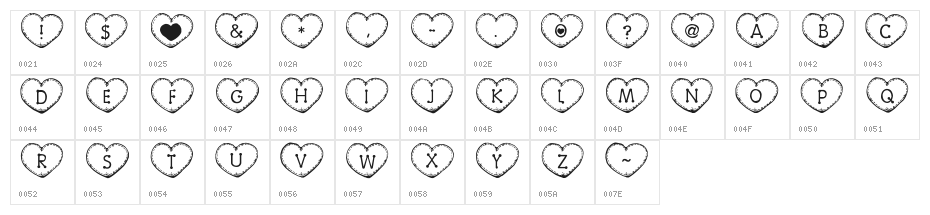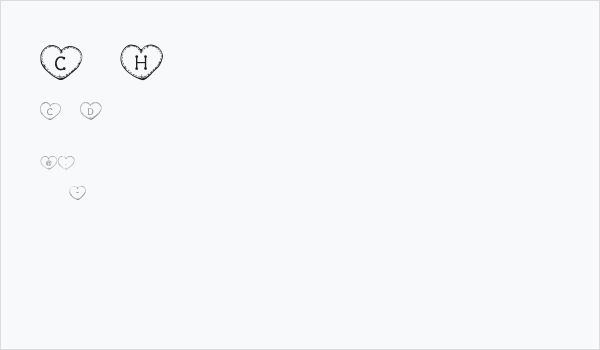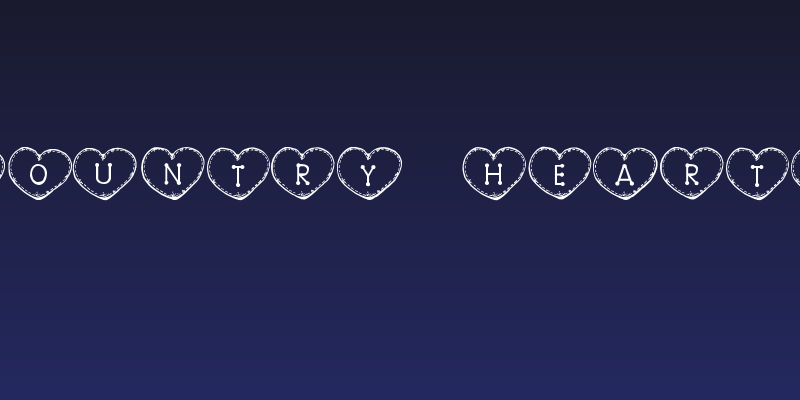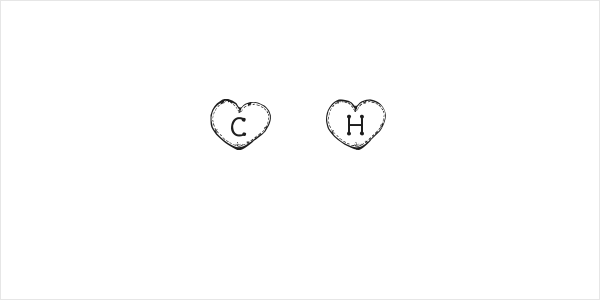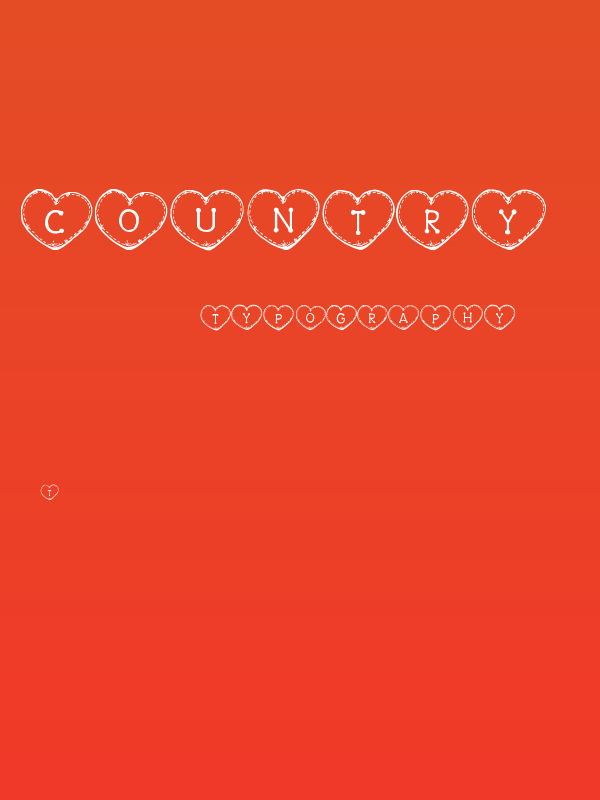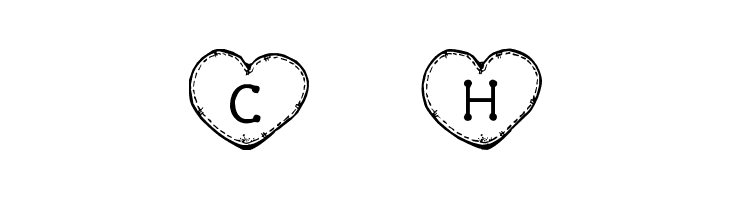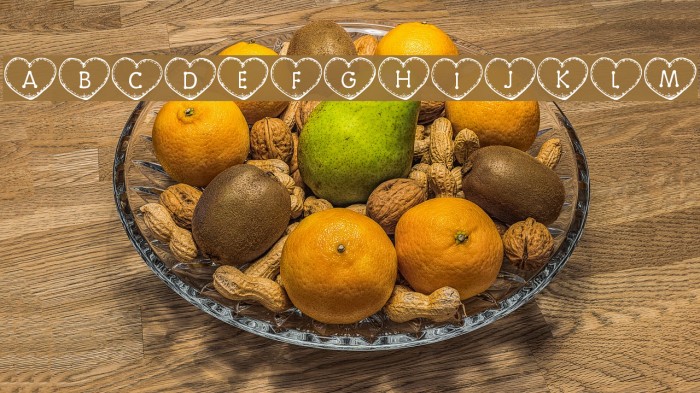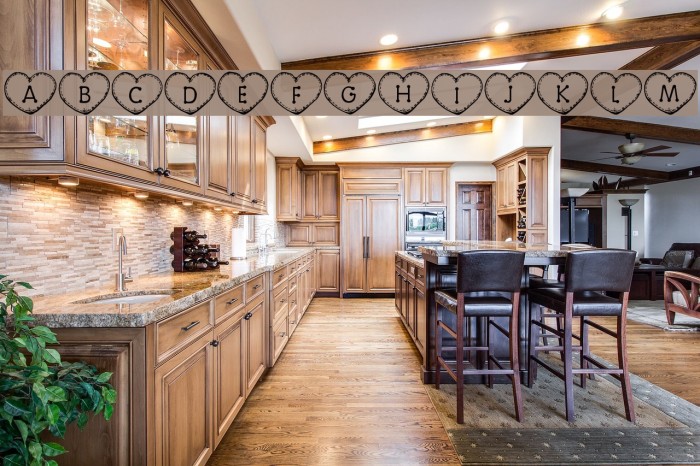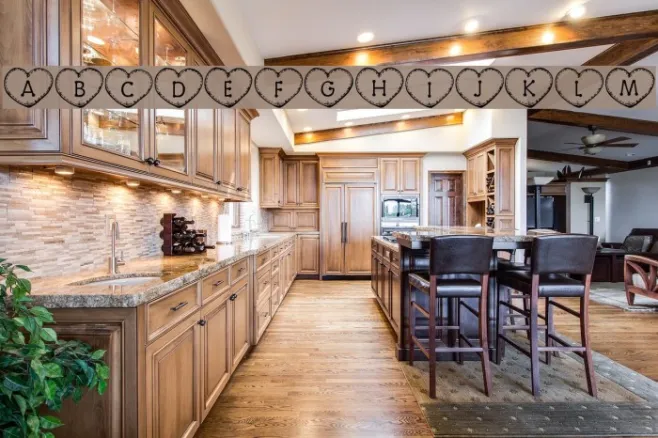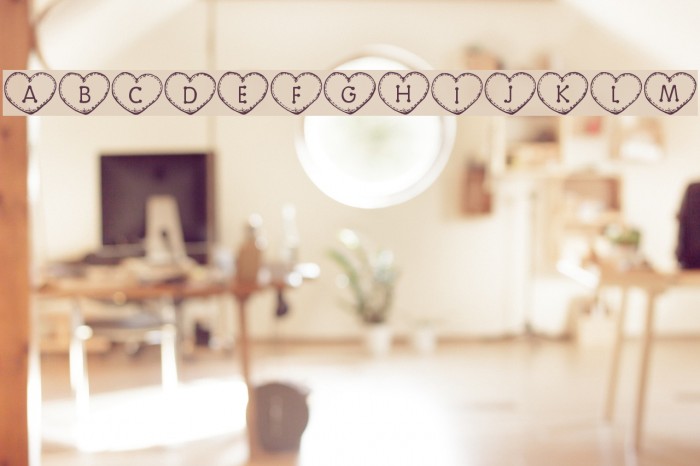
Country Hearts Font
Country Hearts Description
This font features uppercase letters and special characters enclosed within heart shapes, giving it a playful and romantic feel. The letters are simple and sans-serif, providing a clear and legible appearance. The heart outlines are slightly irregular, adding a handcrafted or rustic charm. This decorative style is ideal for projects that aim to convey warmth, affection, or a whimsical touch. The font's unique presentation makes it suitable for creative and informal applications.
| Overall Style | Whimsical |
| Proposed Projects | Ideal for Valentine's Day cards, wedding invitations, romantic event posters, and playful branding materials. |